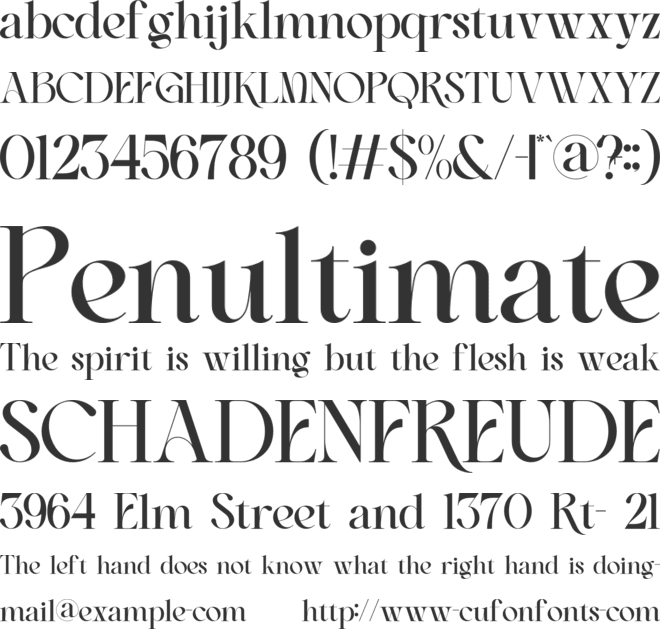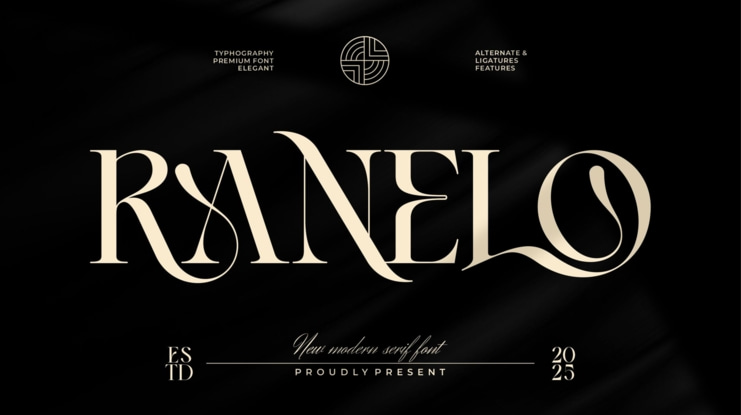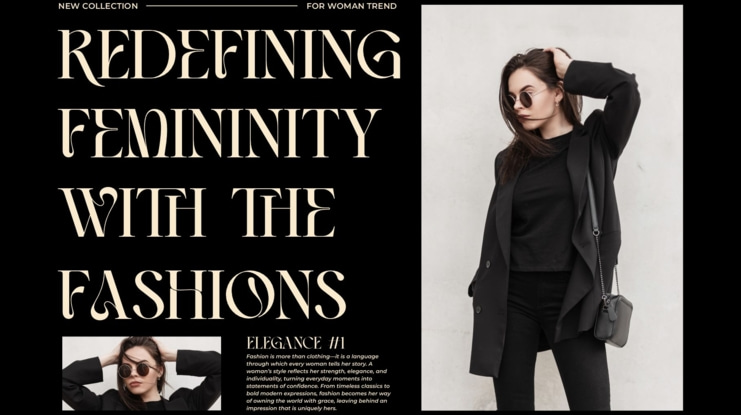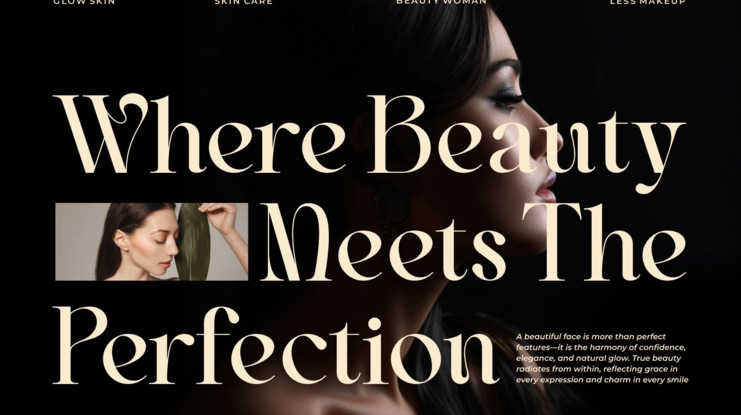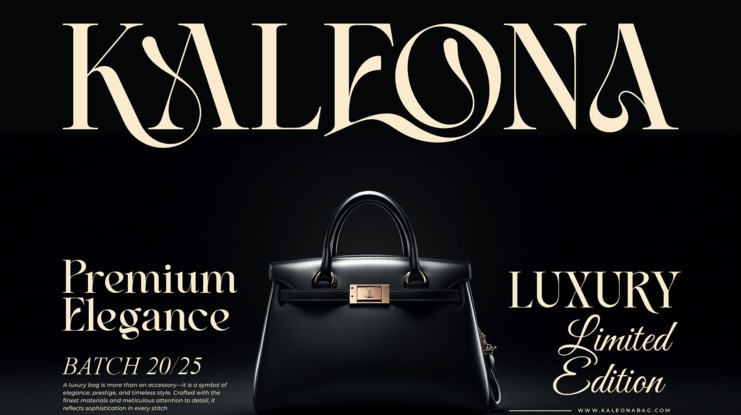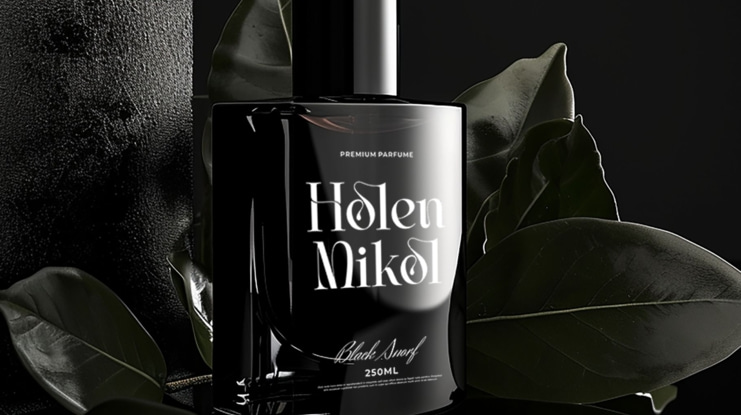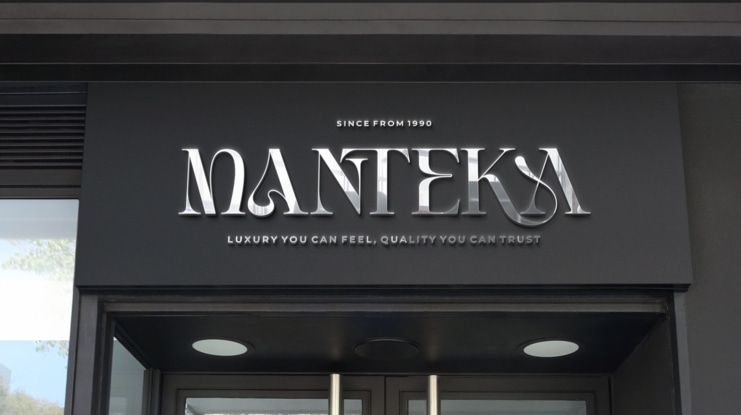
Ranelo Serif is a modern and elegant font type for all branding and logo designs. This modern and elegant Serif font has a beautiful character. This font is suitable for invitation card designs, cool logos, movie titles, movie names, business cards, book titles, brand names, and various other designs. Ranelo Serif is a smooth serif font that exudes sophistication and the moment. Its stylish ligatures make this font a perfect partner for any project.
- Ligature
- Uppercase and lowercase
- Numbering and Punctuation